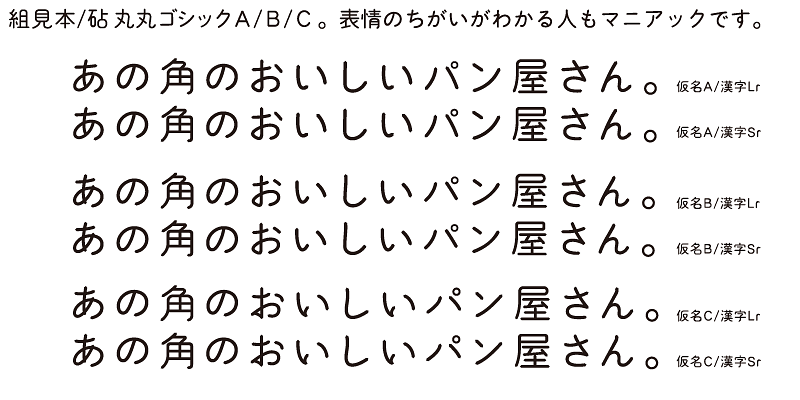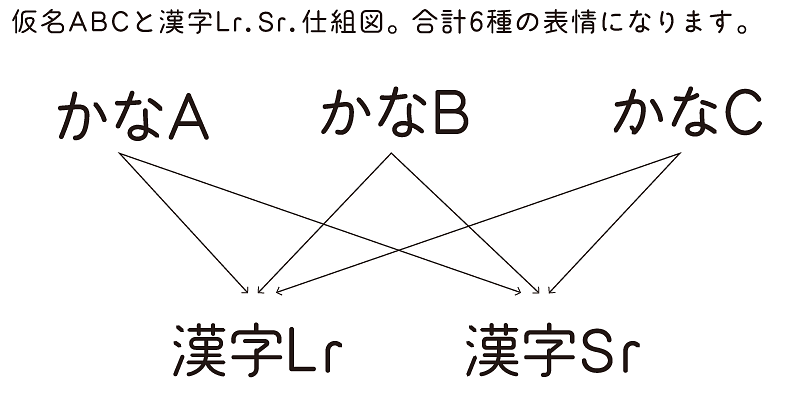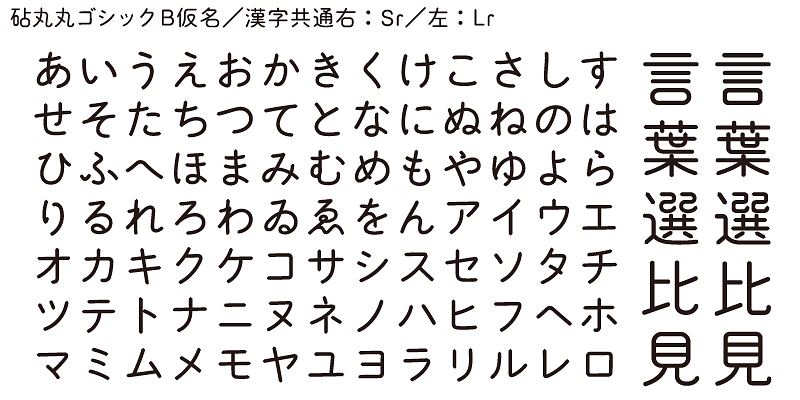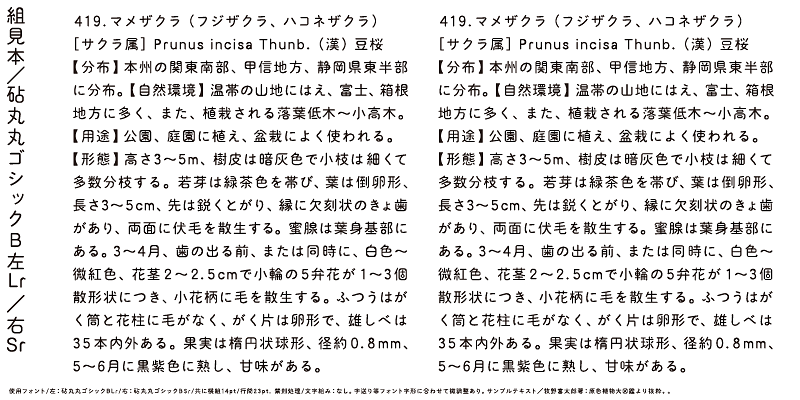
Marumaru Gothic has two variations, Sr and Lr, with smaller and larger rounded corners. The Sr variation looks precise, while the Lr looks spontaneous. Enjoy pairing these with various kanji fonts depending on the text – the effect is exceptional. There are three kana styles.
The Kana B style is smooth and reliable. It’s a useful, general-purpose typeface.
One characteristic of the Japanese language is that it has kana syllabic characters. Kana characters were invented in Japan to represent sounds in Japanese and translate texts imported from China into Japanese. Kana characters are needed to create Japanese words and expressions from kanji/Chinese ideographic characters. While there may be ambiguities, these words and expressions exhibit the warmth and gentleness of the lives of people living in the small and densely populated land of Japan.
Kinuta Font Factory’s believes that kana characters are the origin of written words in Japanese, and we think that improving kana characters will make Japanese text more attractive. On average, 60% of Japanese text consists of kana characters – changing the shape of these characters changes the visual appearance of the text. The possibilities for typographic expression using simple, dynamic and curvilinear kana characters are vast, and the richness of Japanese text depends on kana characters. This is the reason why Kinuta Font Factory offers many variations of kana typefaces.